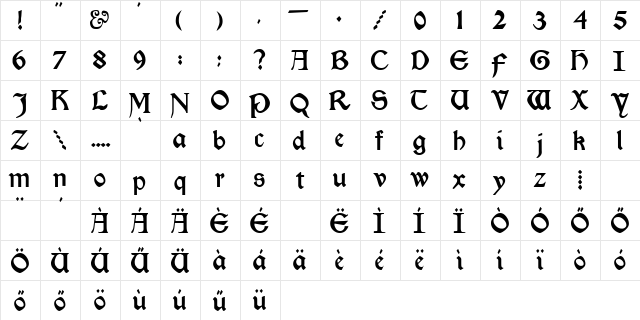
H_Kelmscott Regular
Design Context for H_Kelmscott
H_Kelmscott is a composed and adaptable typeface that performs quietly and consistently across a wide range of design contexts.
Pro Tip: Use H_Kelmscott in both headline and body roles to test its range before committing to a single application.